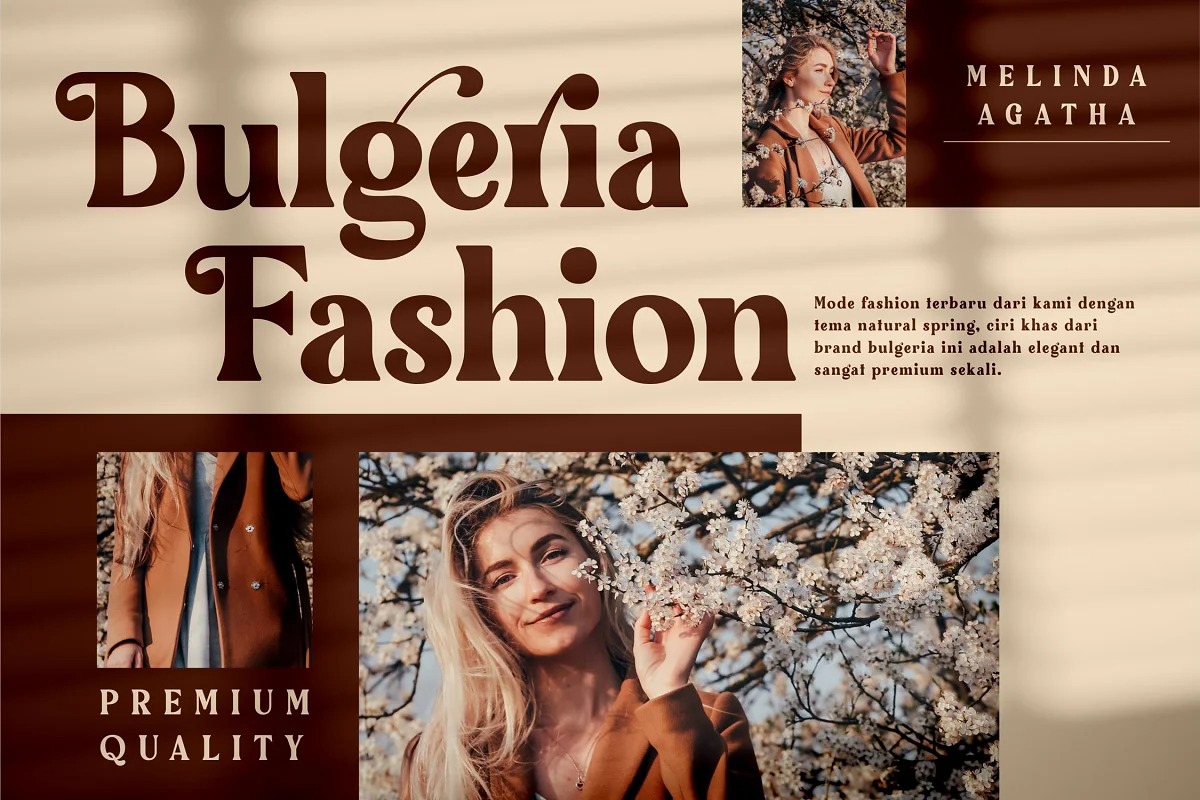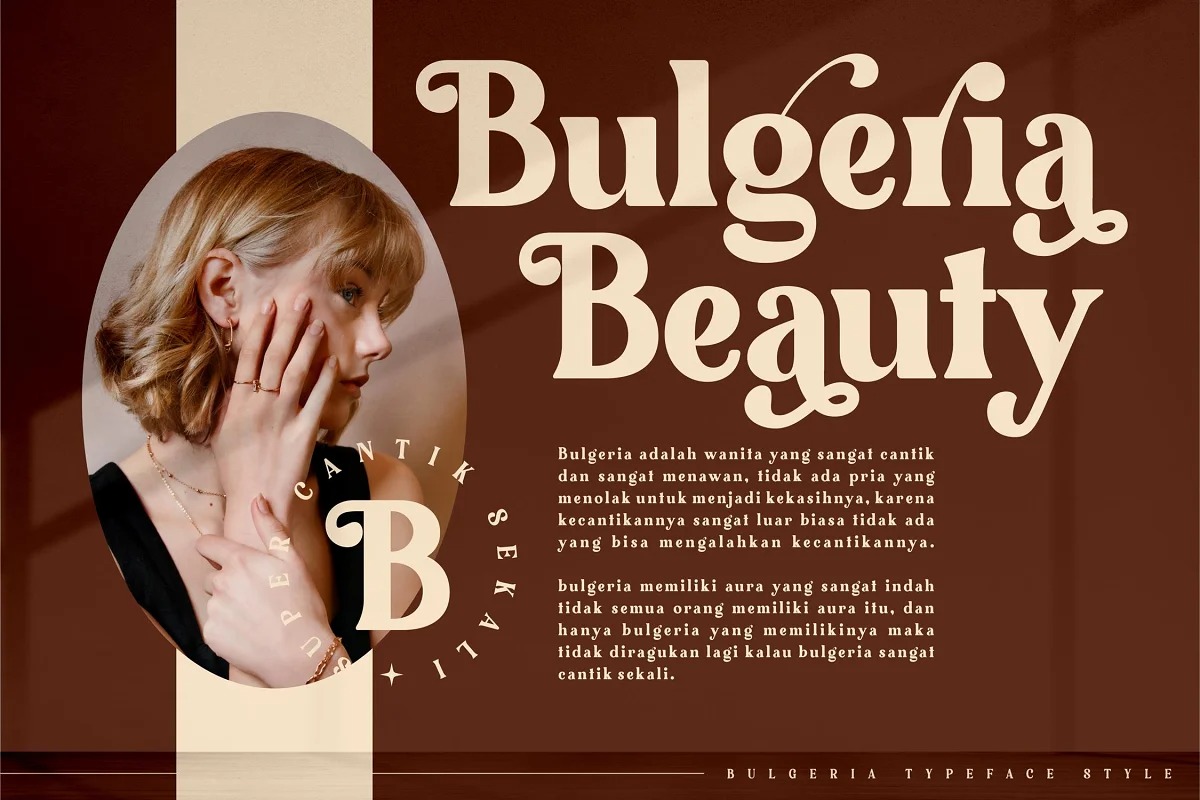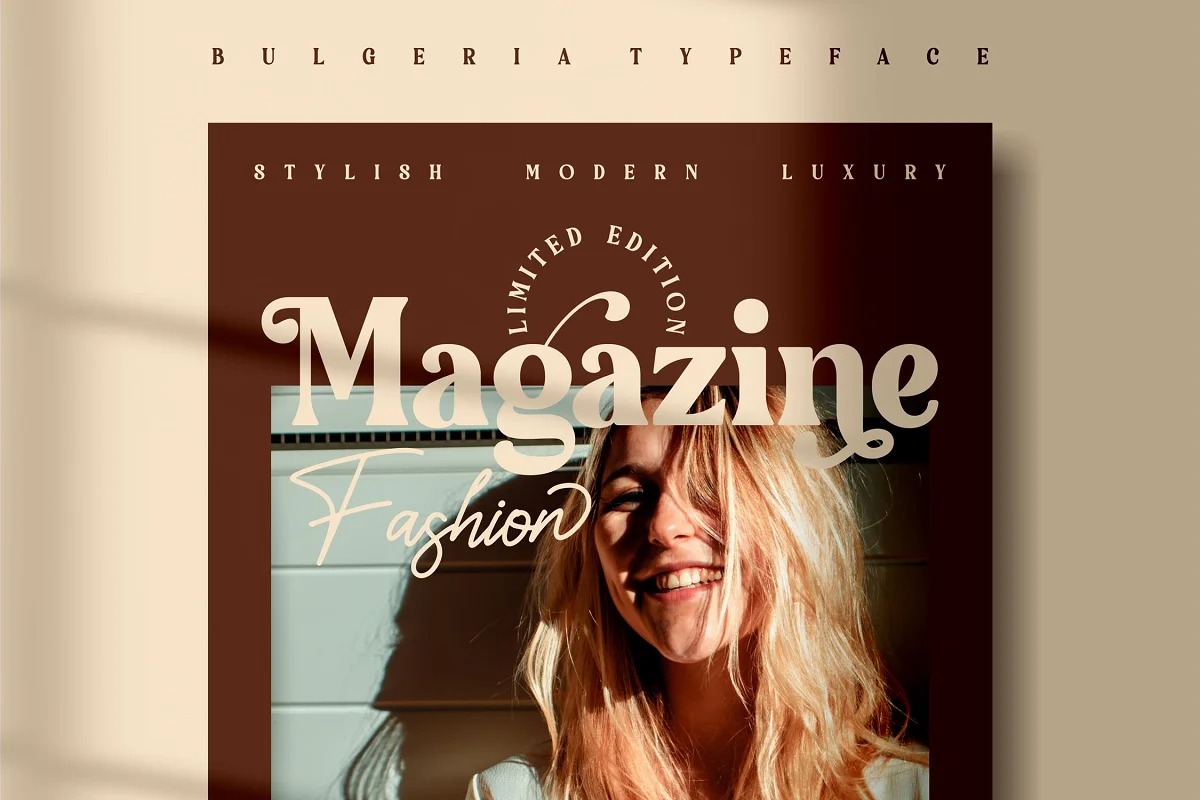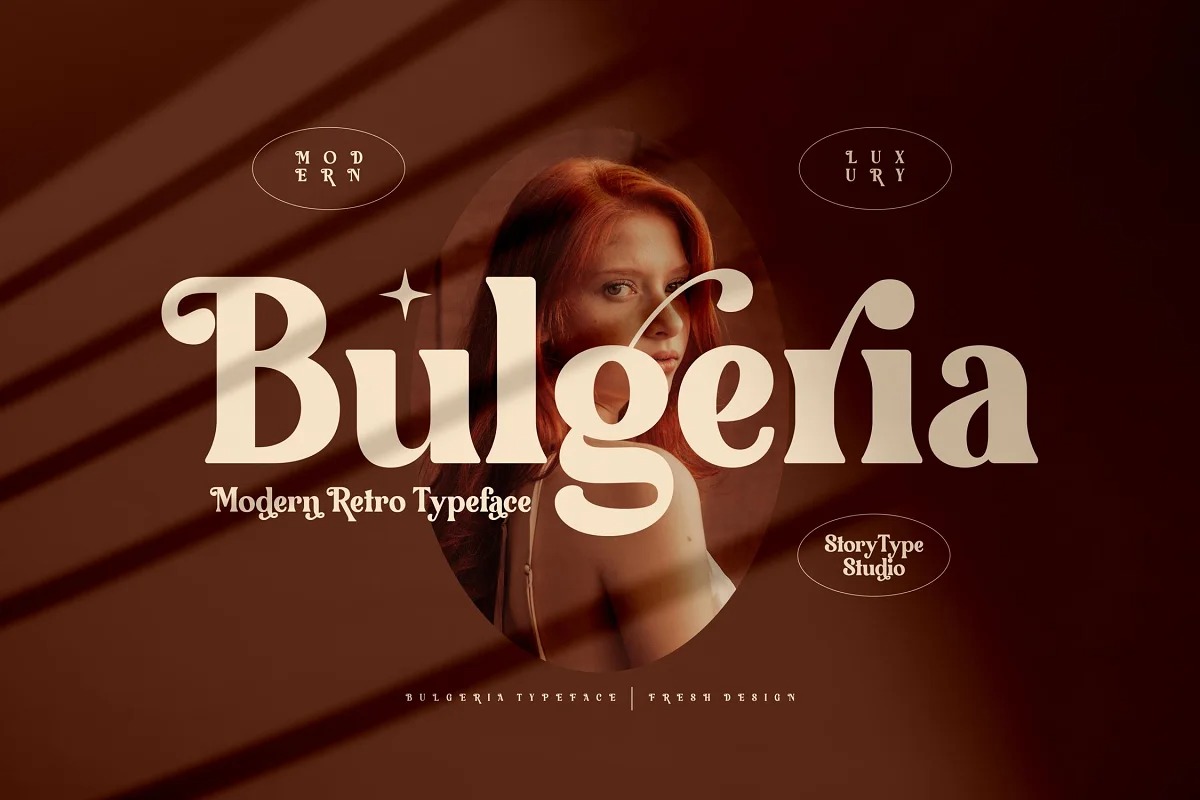
Bulgeria Serif Font
This is a luxurious display serif font created by Storytype Studio with classic forms and modern style. This typeface is perfect for an elegant & luxury logo, book or movie title design, fashion brand, magazine, clothes, lettering, quotes, and so much more.